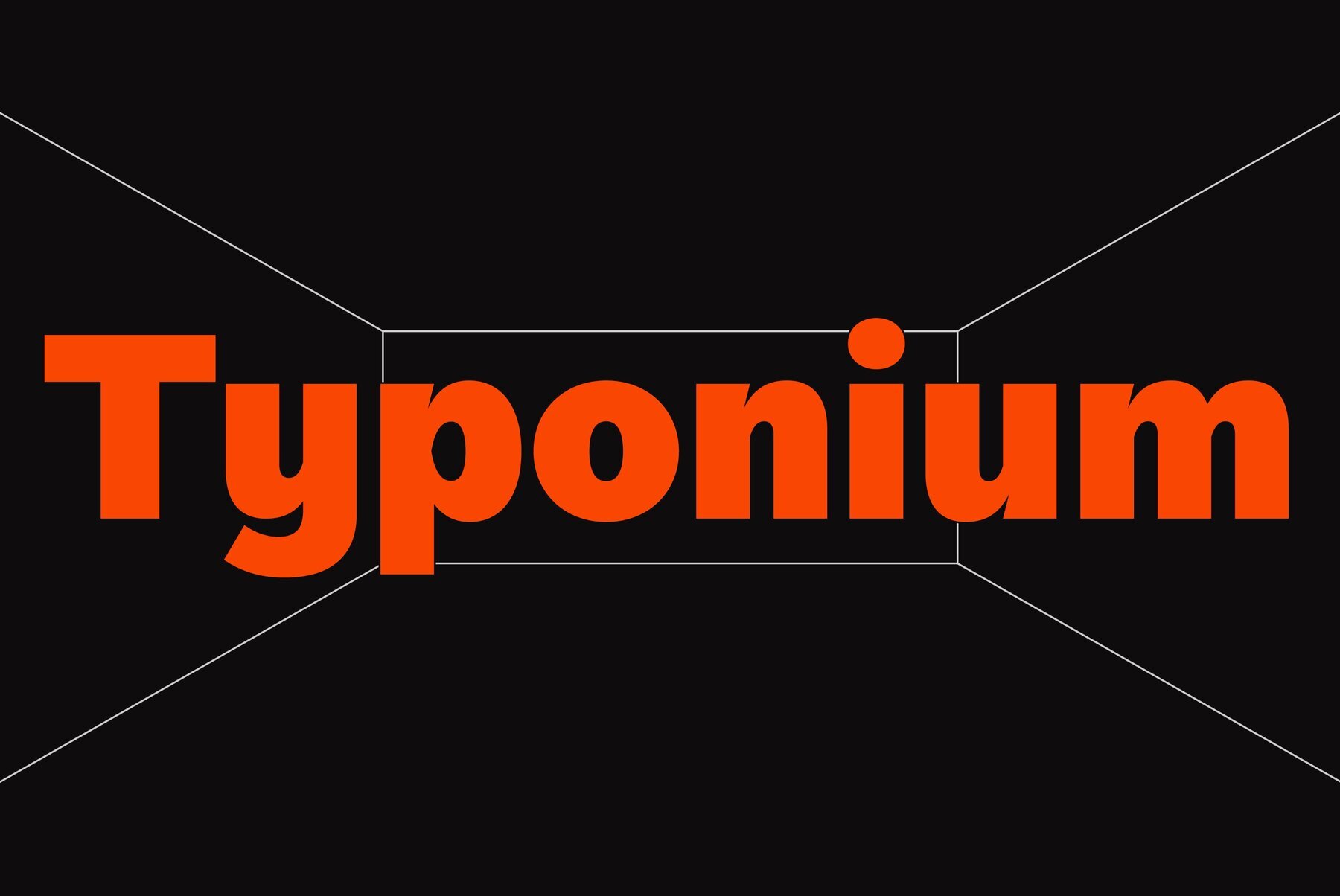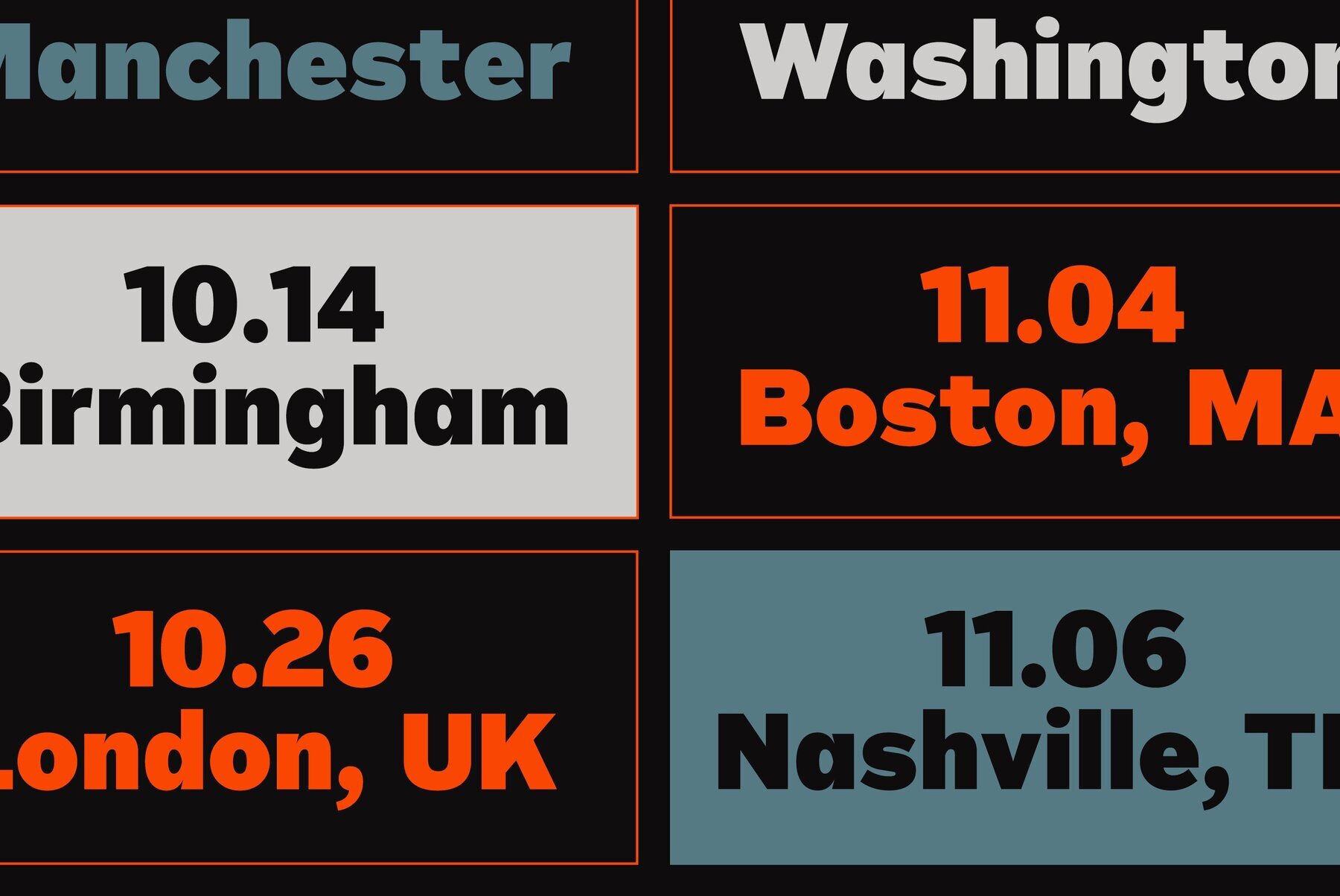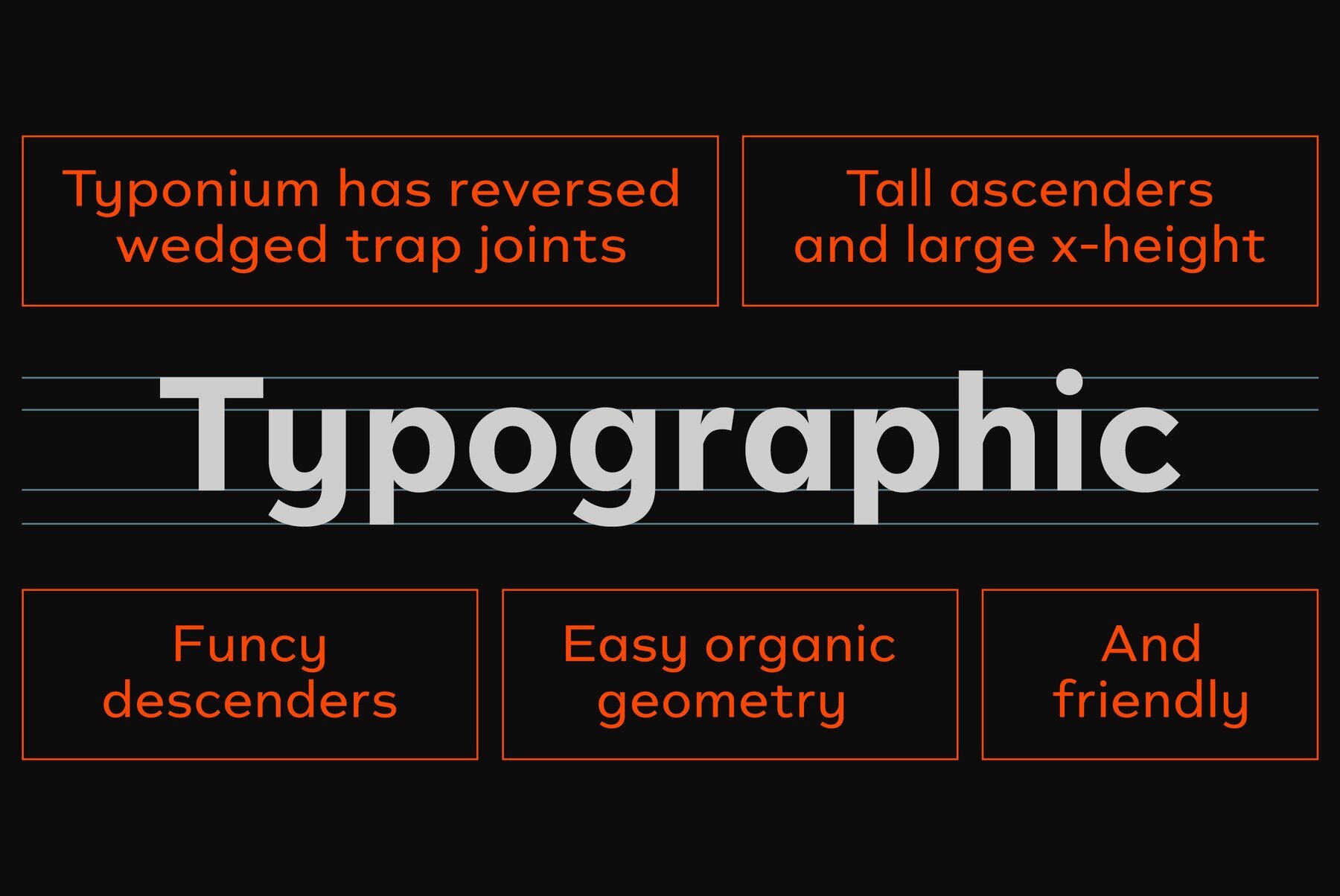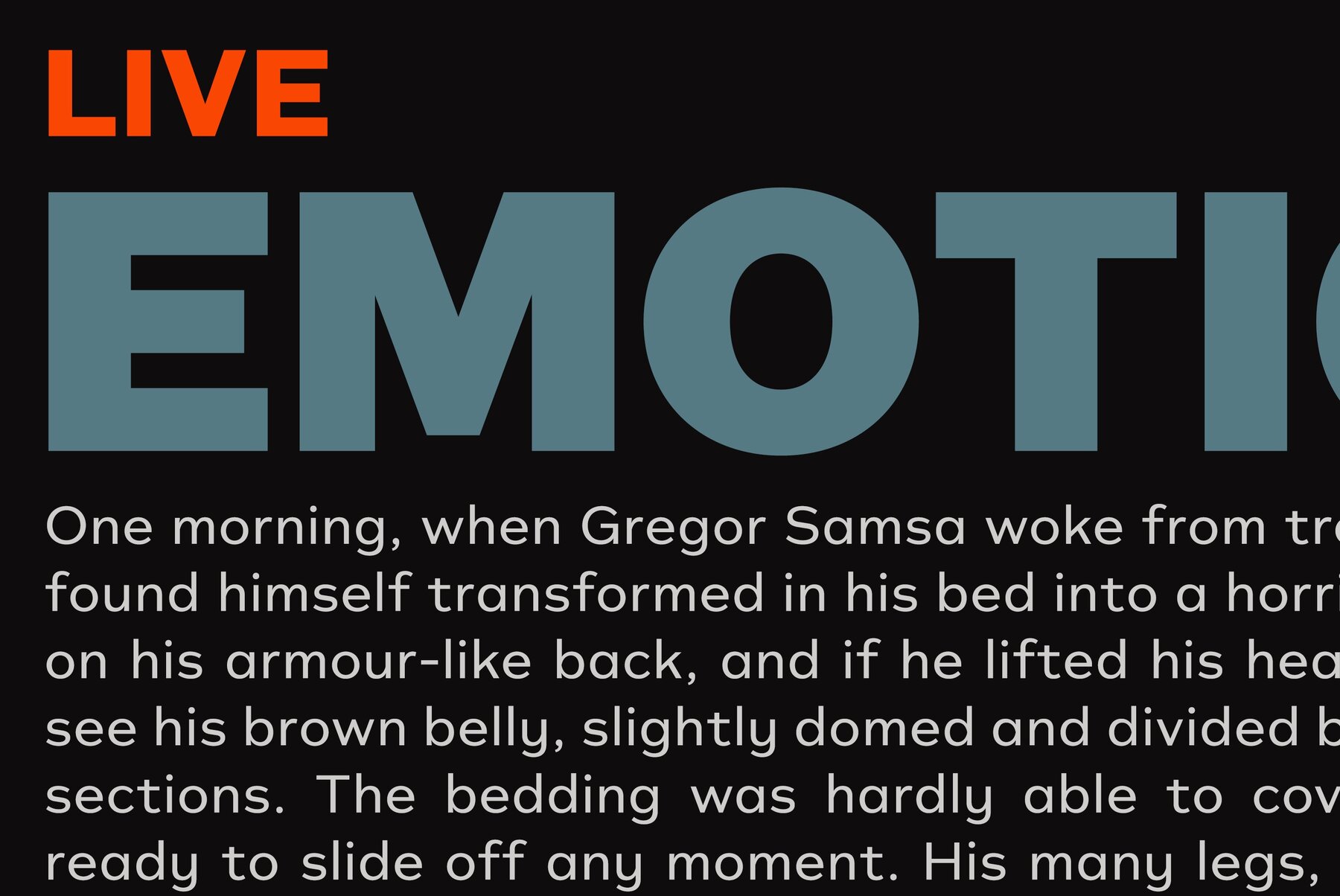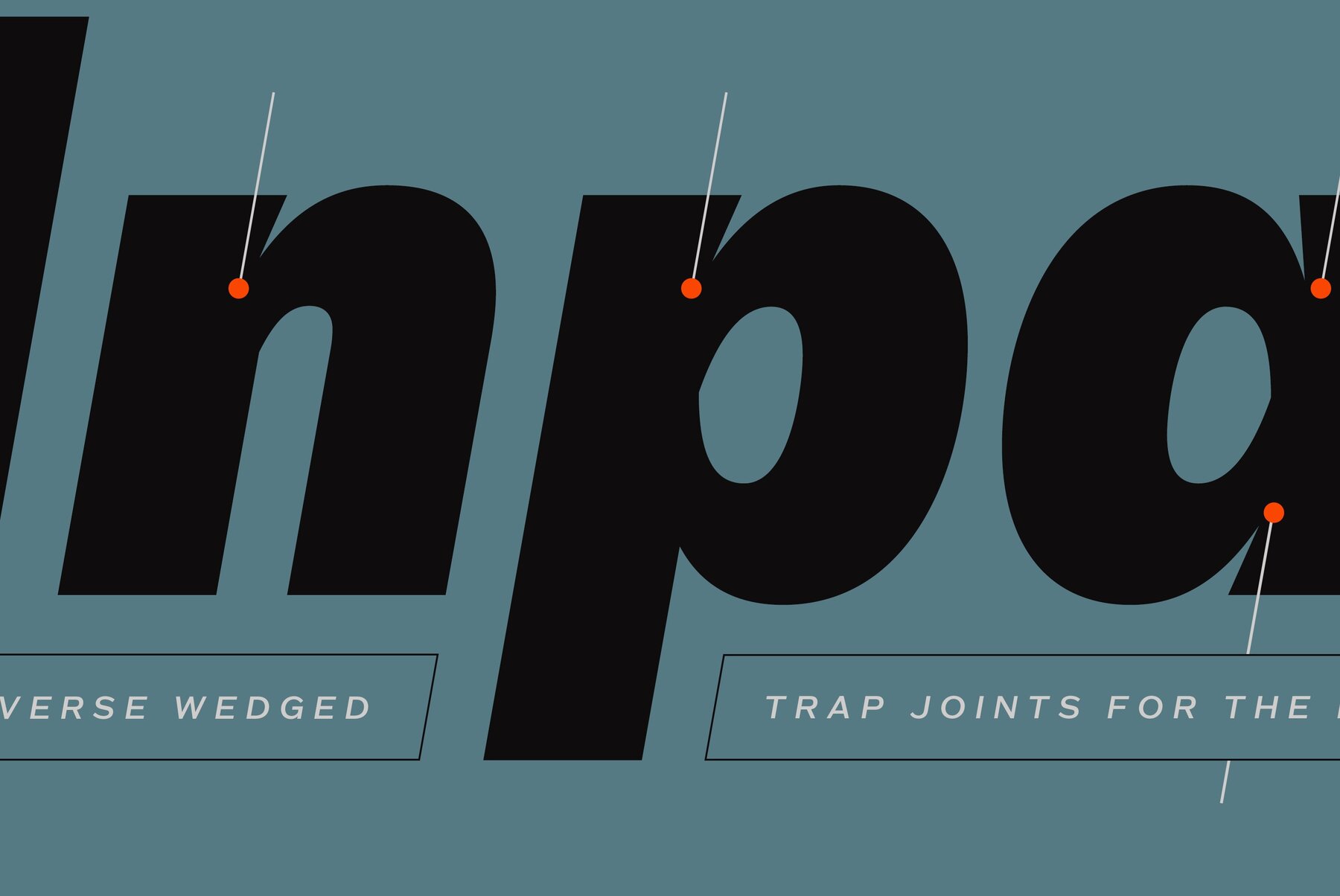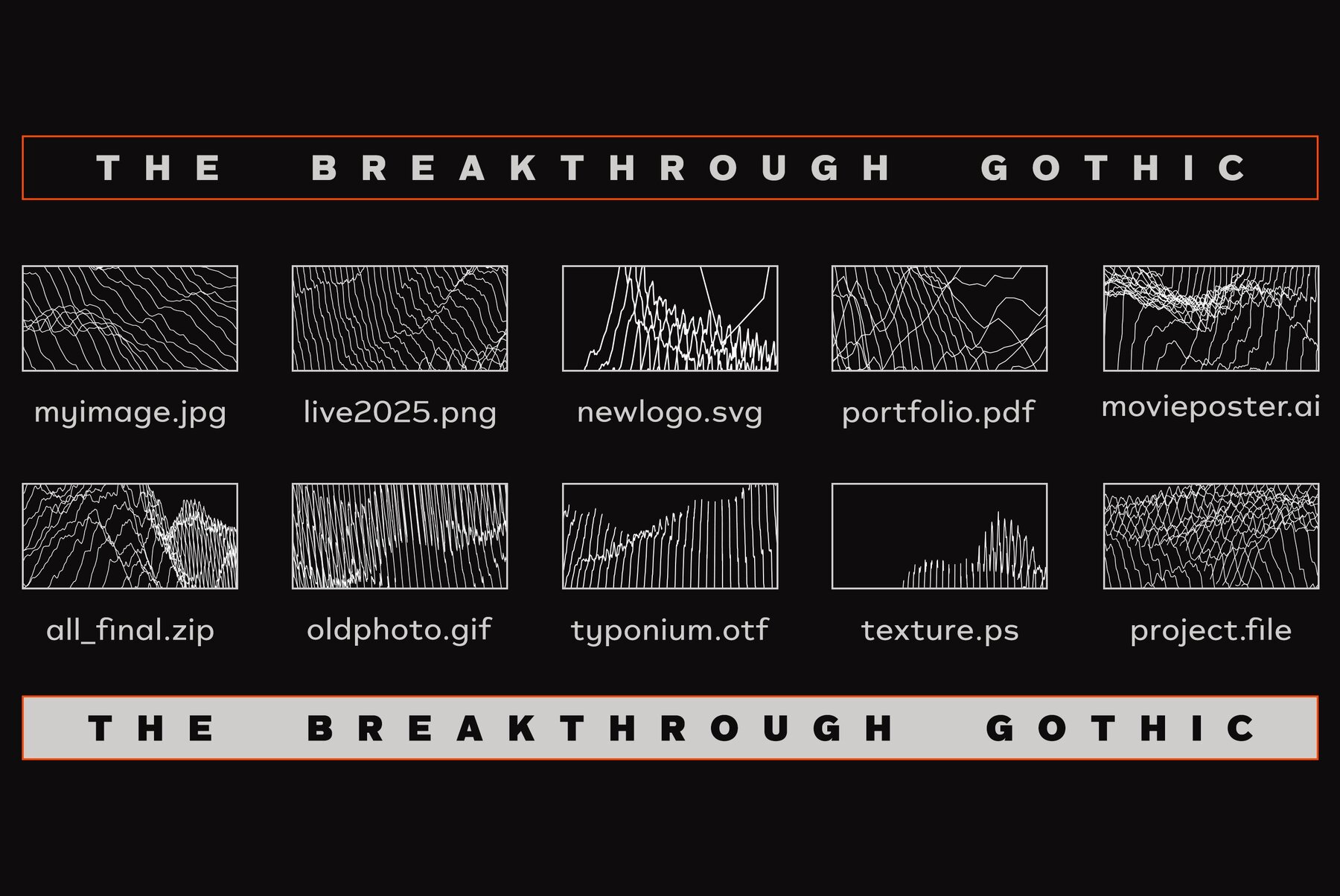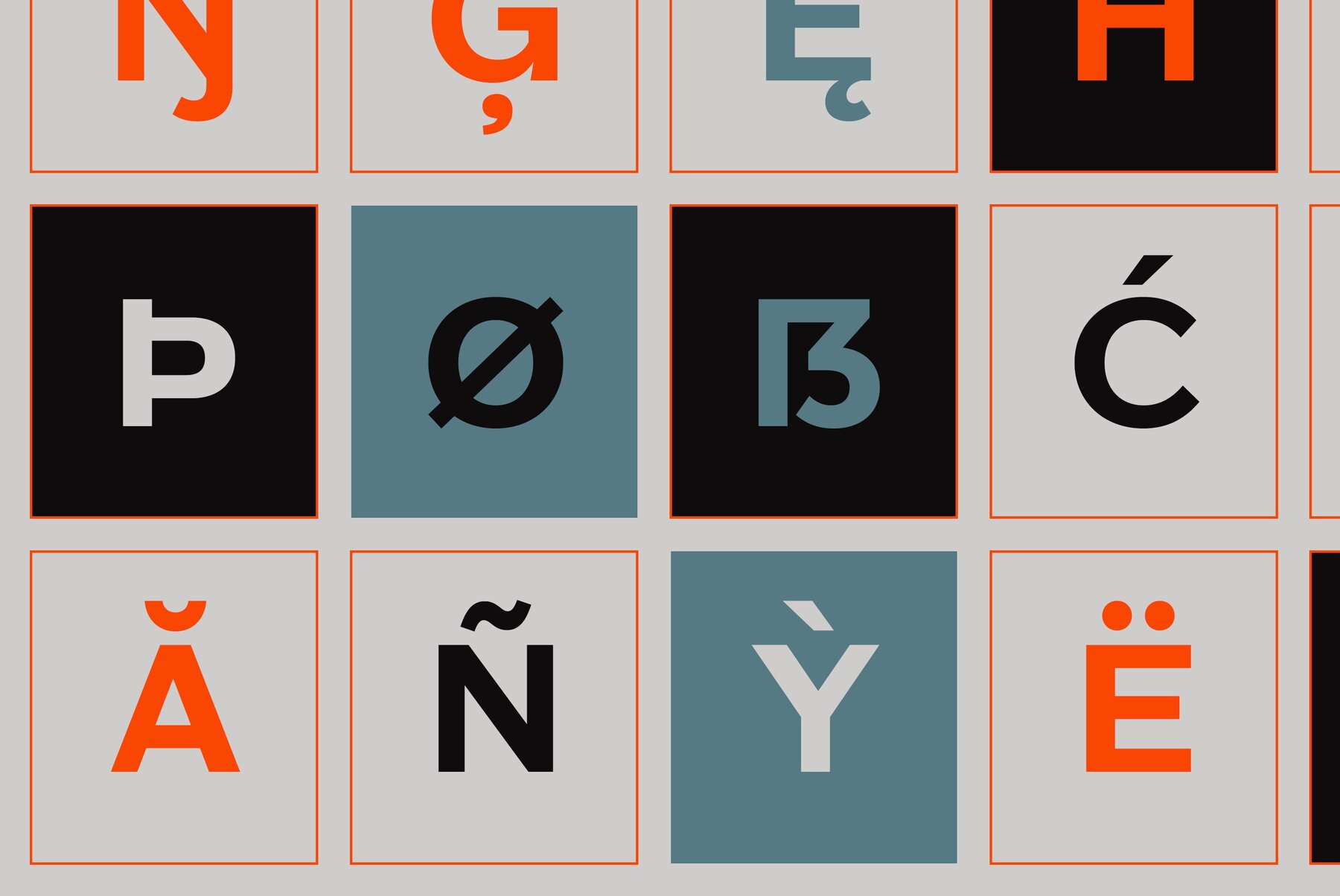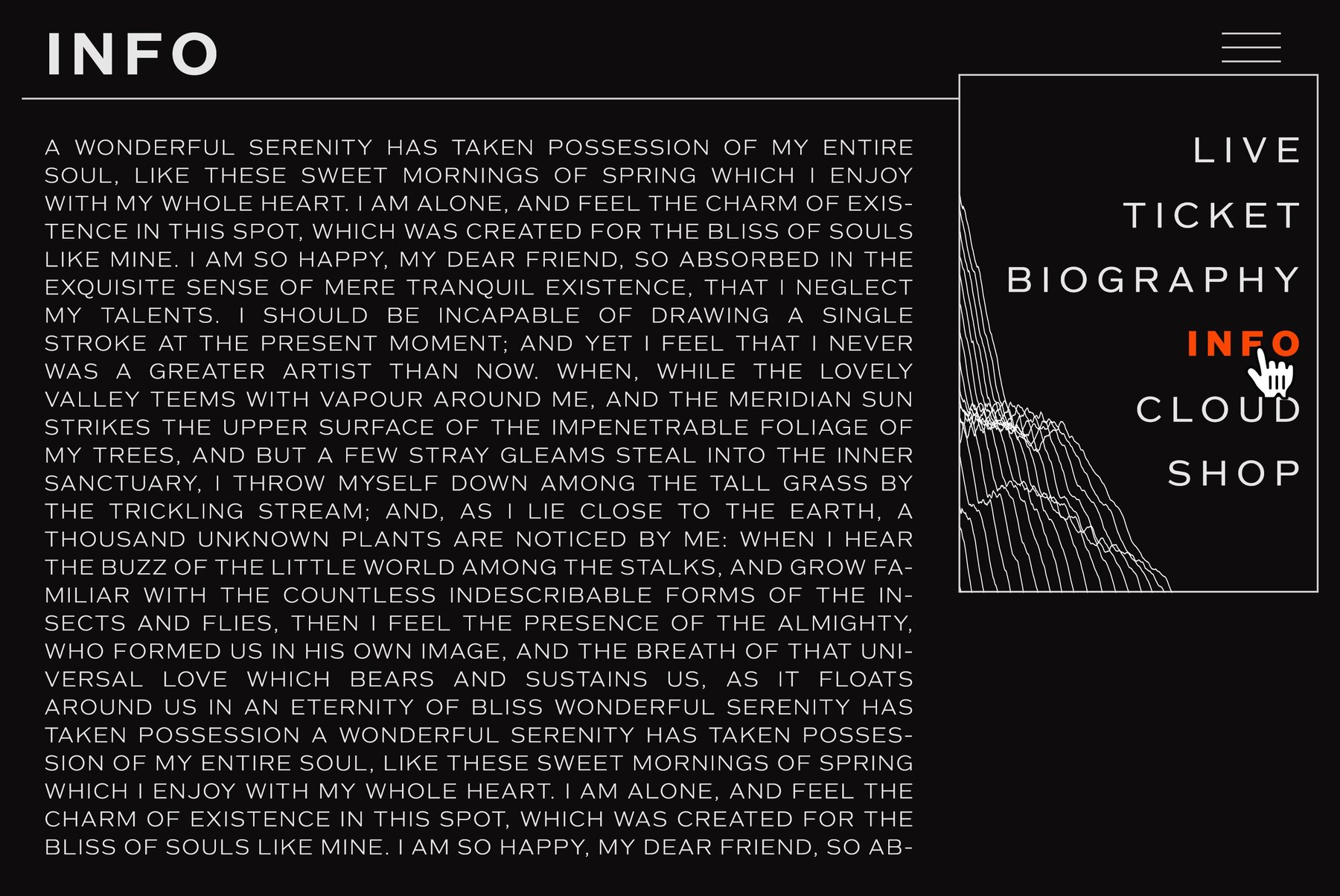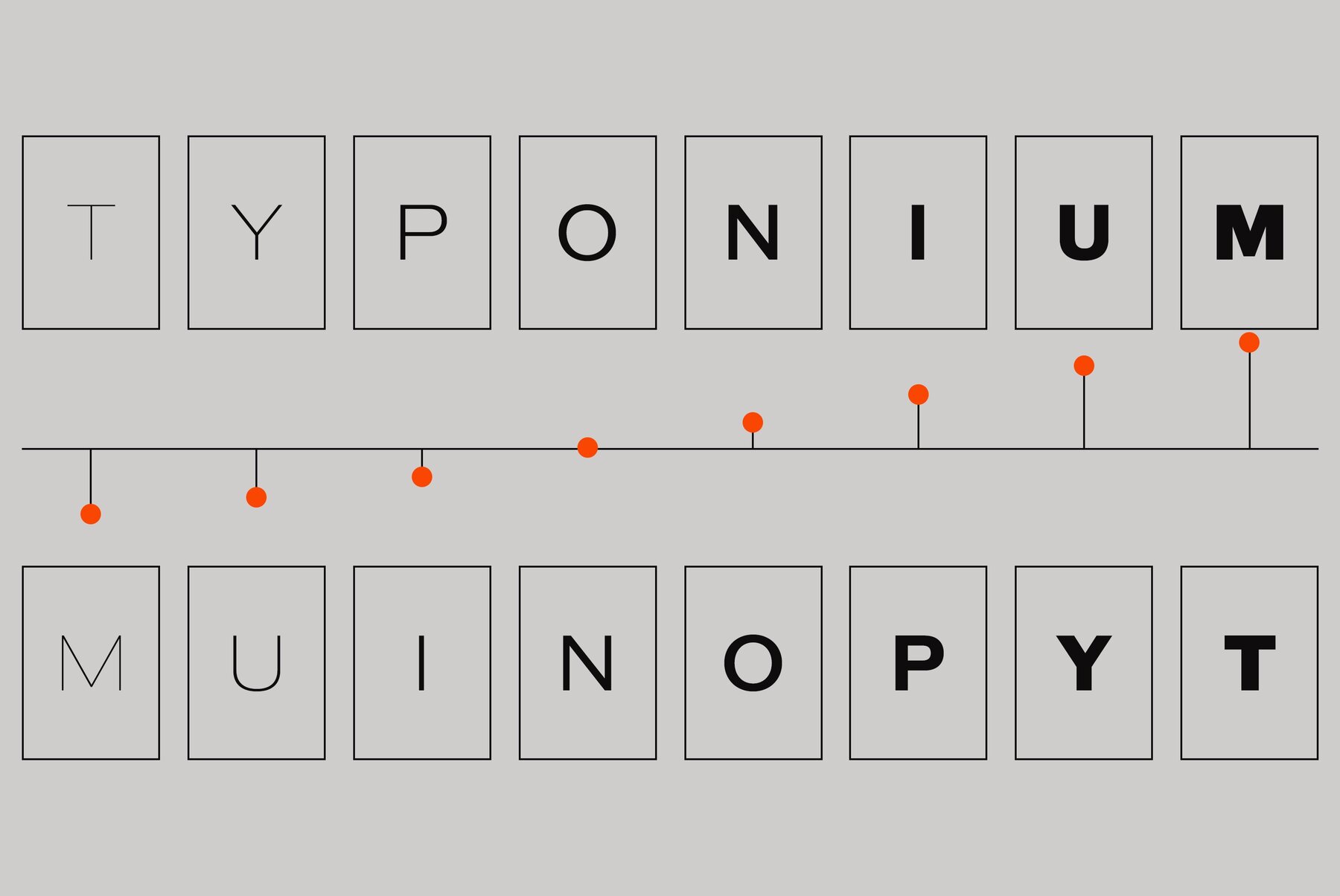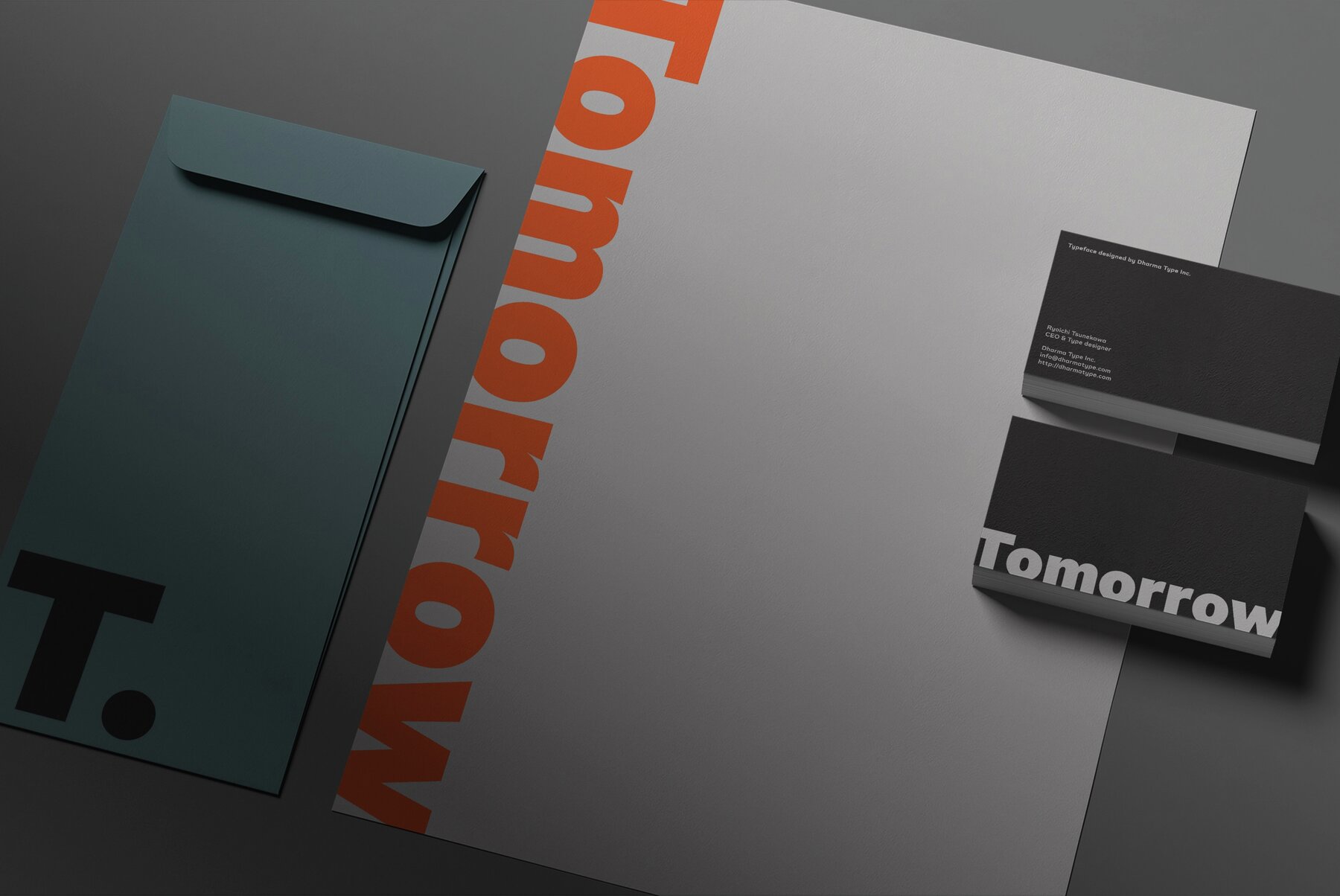
Typonium Font
This typeface is fundamentally crafted on simple geometric forms. Its essence draws from the aesthetics of modernist movements such as Bauhaus and universal design, embodying shapes that are minimalist yet highly legible, characterized by their softly rounded bowls. Ascenders in characters like "f," as well as descenders in "y" and "g," share this gentle roundness, imparting a warm and inviting feel to the overall design. The typeface's standout feature lies at the junctions where stems and bowls converge, employing reverse ink-traps. This innovative design choice imbues the typeface with a sharp, defined presence, enhancing visual tension and clarity. This typeface strikes a balance between softness and strength, standing as a quiet contradiction, akin to the paradoxical coexistence of two opposing states.Geometric Typeface: The Art of Modern Design
In the early 2000's, Ryoichi Tsunekawa was fascinated by the relations between modernist design and Bauhaus style while studying architecture at Nagoya University. He eventually changed his focus to type-design, establishing an extensive font collection that is now available on YouWorkForThem.The desig...